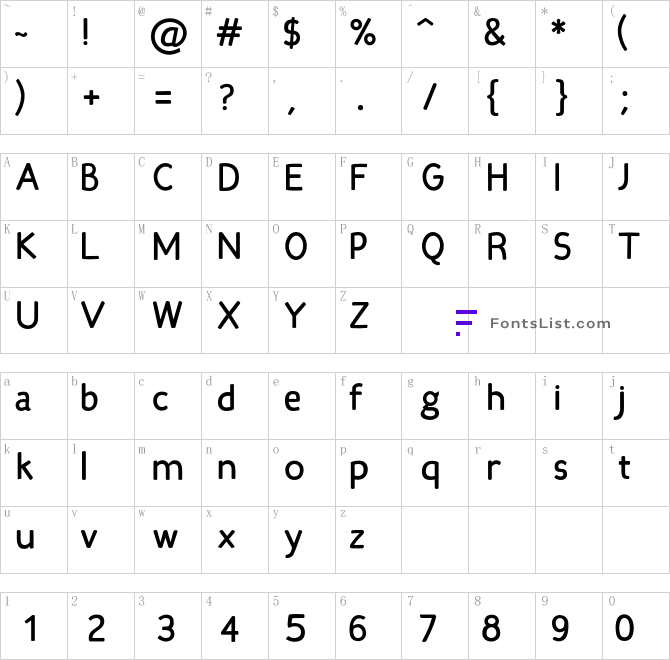
- Font Name:Candela Bold
Candela-Bold.otf is a very beautiful artistic font, Candela-Bold.otf is widely used in the design and printing of various books and pictures,Candela-Bold.otf has a strong visual impact,Candela-Bold.otf is a commonly used font in newspapers, magazines and books, and is used in posters, e-commerce Poster design, store design, logo design, font design and other fields.Candela-Bold.